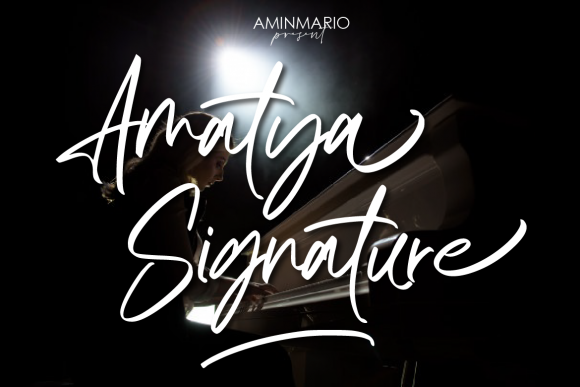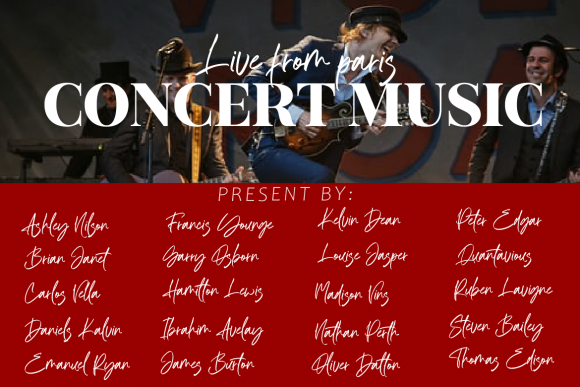
About Amatya Signature Font
Amatya Signature is a stylish and incredibly elegant script font. It looks stunning on wedding invitations, thank you cards, quotes, greeting cards, logos, business cards and every other design which needs a handwritten touch. This font is PUA encoded which means you can access all of the glyphs and swashes with ease!